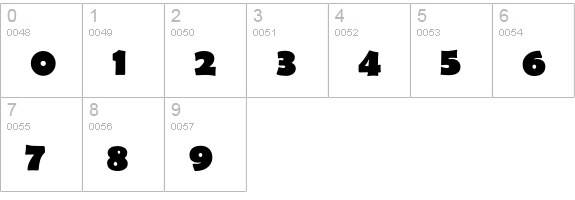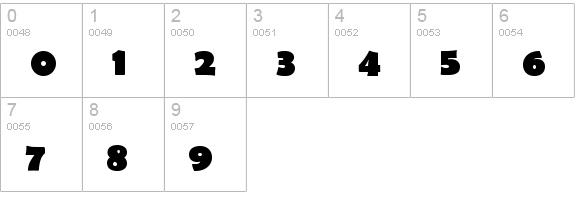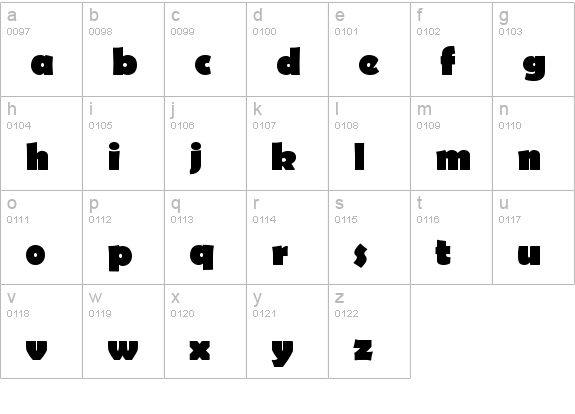
Berlinsans-Bold Font Details
Berlinsans-Bold is a strong, high-contrast variant in the Berlinsans typeface family \xE2\x80\x94 well suited to headlines, attention-grabbing titles, and strong calls-to-action.
Introducing Berlinsans-Bold, a sleek and modern font that exudes confidence and sophistication. With its strong, bold lines and clean design, Berlinsans-Bold is perfect for making a statement in your projects. Whether you're creating a striking logo, eye-catching headlines, or elegant branding materials, this font will surely elevate your design to the next level. But the best part? Berlinsans-Bold is completely free to download at FontsMarket.com! That's right, you can access this premium font at no cost, making it an incredible value for designers and creatives alike. Don't miss out on the opportunity to enhance your work with the distinctive style of Berlinsans-Bold. Download it today and start creating stunning designs that stand out from the crowd.